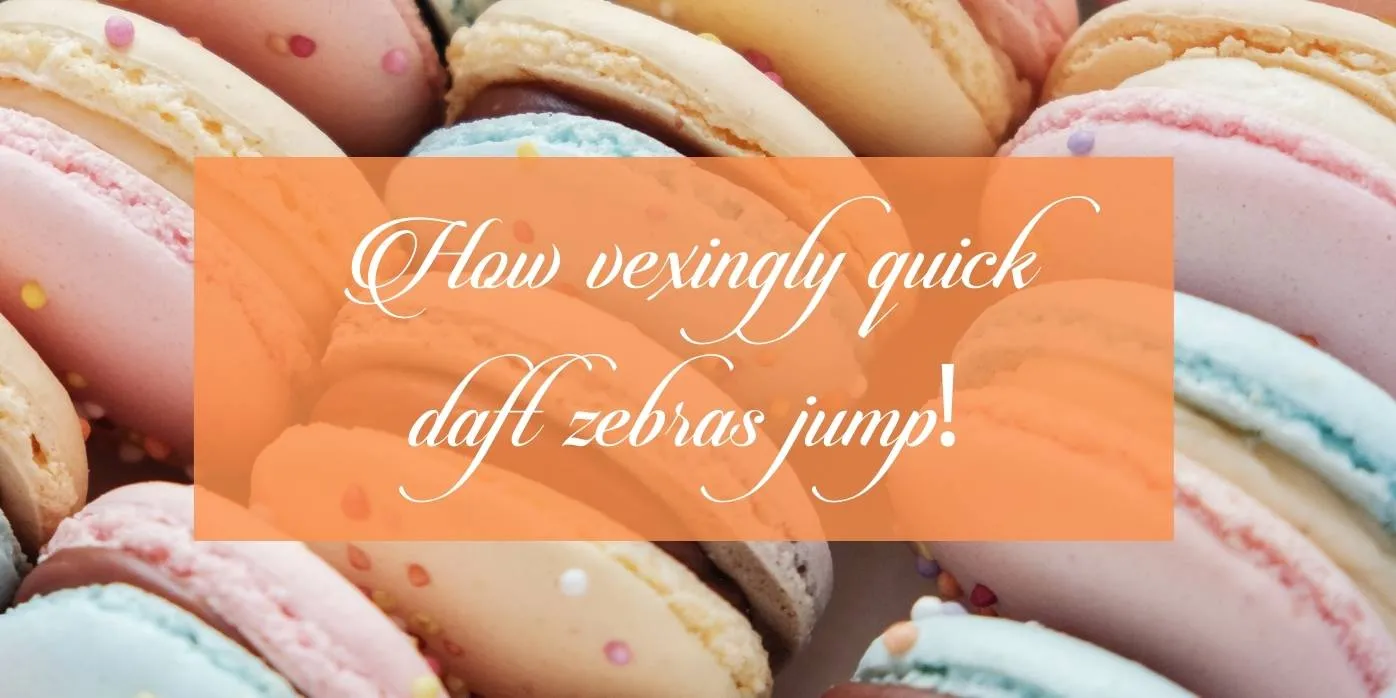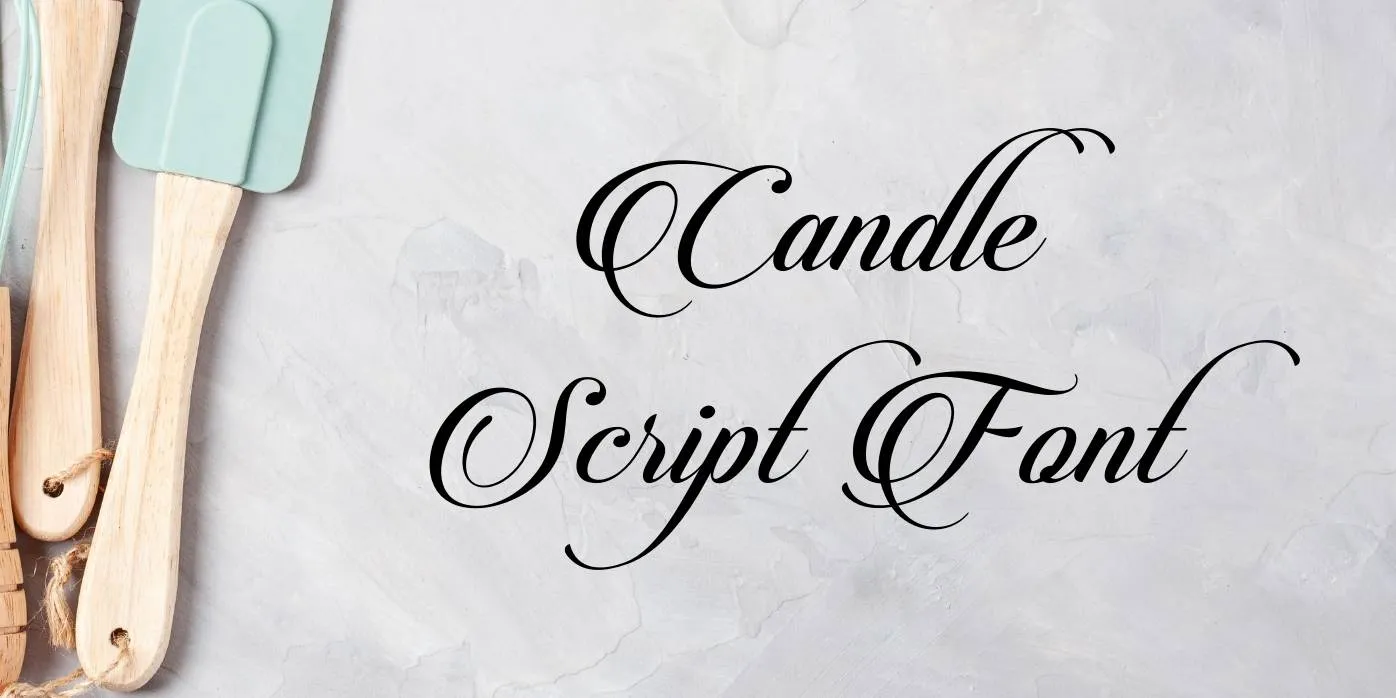
Candle Script Font
Today we introduce a very stylish typeface that is Candle Script Font. It belongs to the calligraphy Fonts. This amazing typeface was designed by a very elegant designer named M Fairuzulhaq Aka Ve. In the year 2014, this attractive typeface was developed by a very famous Indonesian foundry.
It comes in 53 unique Glyphs, and also contains different amazing and special characters almost nearly equal to 54. This tremendous typeface is available in OTF. Its unique style attracts all visitors to work itself. It has keen features.